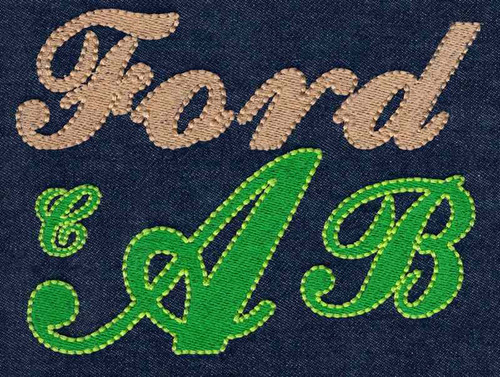
560 Ford Fill & Floss Font
Ford Fill & Floss Font comes in 1", 2", 3" and 4" heights based on the capital "A". All sizes included in purchase price. Includes uppercase letters, lowercase letters, numbers and six punctuation marks. All characters finished Fill Stitch with Floss Stitch outlines as two-color setup. Floss stitch stitches out on all embroidery machines using standard embroidery thread.